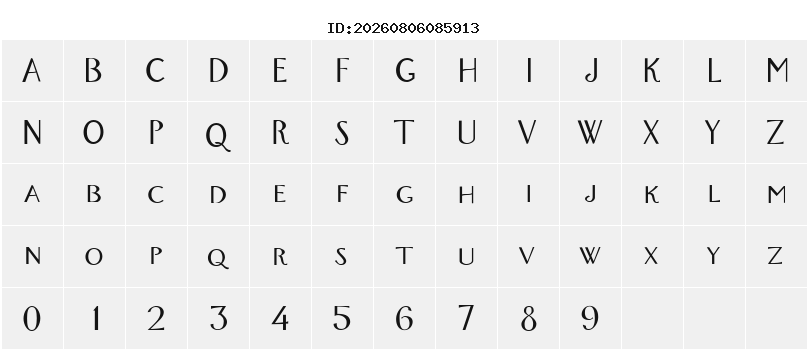
Orlando Preview
• Font Name: Orlando
• Full Font Name: Orlando
About Orlando.ttf
Orlando.ttf is a modern, elegant sans-serif font designed for ultimate readability and visual harmony. Perfect for branding, headlines, web design, and print materials.